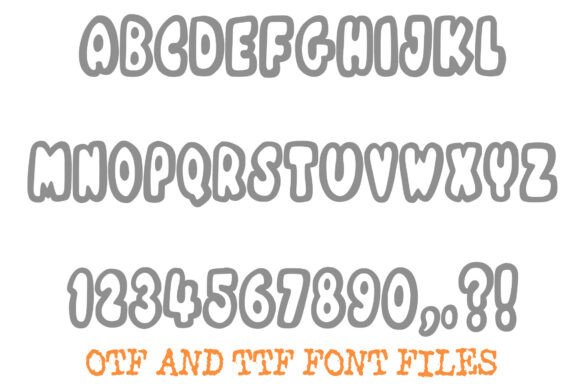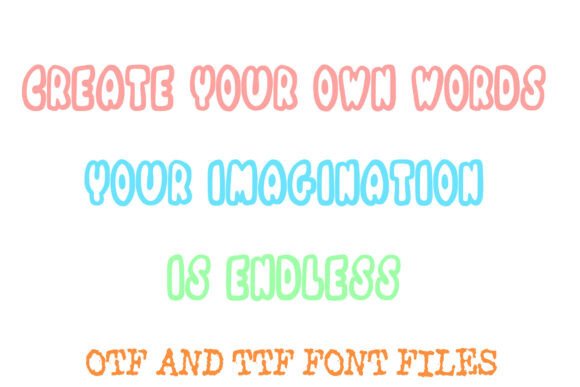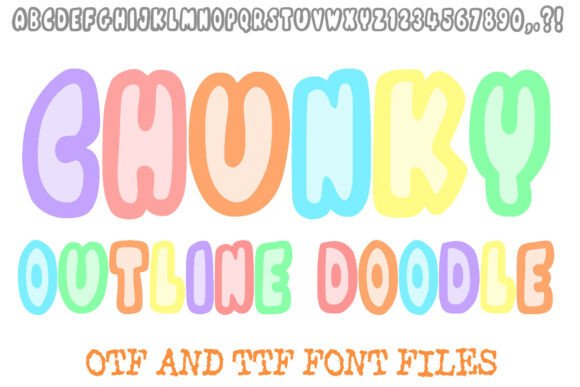
Add a Pop of Personality to Your Creative Work with Chunky Outline Doodle Font
Are you tired of using the same old fonts in your creative projects? Do you want to add a dash of personality and whimsy to your designs? Look no further than the Chunky Outline Doodle Font! This high-impact display typeface is perfect for designers who want to make a statement and capture a trendy, retro-pop vibe.
What is Chunky Outline Doodle Font?
The Chunky Outline Doodle Font is a unique and eye-catching typeface that features thick, “puffy” characters designed with a clean, bold black outline and a friendly, rounded aesthetic. Its hand-drawn, “doodled” feel makes it perfect for designers who want an approachable and energetic look that stands out from the crowd.
Key Features of Chunky Outline Doodle Font
- Bold and Thick Characters: The font features thick, “puffy” characters that are perfect for making a statement.
- Clean and Bold Black Outline: The clean and bold black outline adds a touch of sophistication and elegance to the font.
- Hand-Drawn and Doodled Feel: The hand-drawn, “doodled” feel of the font gives it a friendly and approachable look.
- Rounded Aesthetic: The rounded aesthetic of the font makes it perfect for designers who want to create a playful and energetic look.
- Excellent Legibility: The bold silhouettes of the font ensure excellent legibility, making it perfect for use in a variety of creative projects.
Perfect for a Variety of Creative Projects
The Chunky Outline Doodle Font is perfect for a wide range of creative projects, including:
- Playful Social Media Headlines: The font is perfect for creating eye-catching social media headlines that are sure to grab attention.
- Kids’ Craft Projects: The font is perfect for use in kids’ craft projects, such as making stickers, coloring pages, and more.
- Stickers and Apparel: The font is perfect for use in stickers, t-shirts, and other apparel.
- Digital Branding: The font is perfect for use in digital branding, such as creating logos, icons, and more.
Capturing a Trendy Retro-Pop and Y2K Vibe
The Chunky Outline Doodle Font captures a trendy retro-pop and Y2K vibe that is perfect for designers who want to create a nostalgic and playful look. The font’s bold and colorful aesthetic is reminiscent of the fun and playful designs of the 90s and early 2000s.
Why Choose Chunky Outline Doodle Font?
There are many reasons why designers and crafters should choose the Chunky Outline Doodle Font for their creative projects. Here are just a few:
- Unique and Eye-Catching: The font is unique and eye-catching, making it perfect for designers who want to stand out from the crowd.
- Versatile: The font is versatile and can be used in a wide range of creative projects.
- Easy to Read: The font is easy to read, making it perfect for use in projects where legibility is important.
- Fun and Playful: The font is fun and playful, making it perfect for designers who want to add a touch of personality to their work.
In conclusion, the Chunky Outline Doodle Font is a unique and eye-catching typeface that is perfect for designers who want to add a pop of personality to their creative work. With its bold and thick characters, clean and bold black outline, and hand-drawn, “doodled” feel, this font is sure to make a statement. Whether you’re creating playful social media headlines, kids’ craft projects, or digital branding, the Chunky Outline Doodle Font is a versatile and fun choice that is sure to delight.